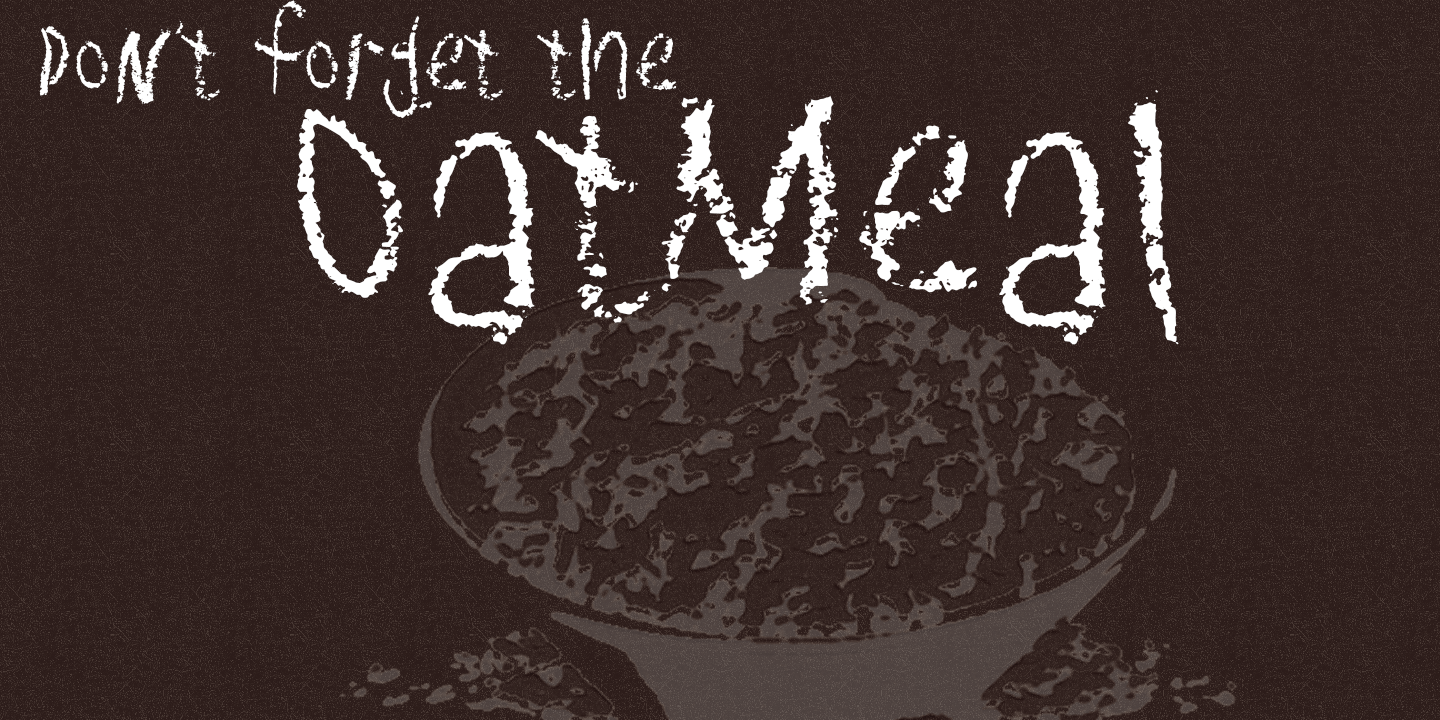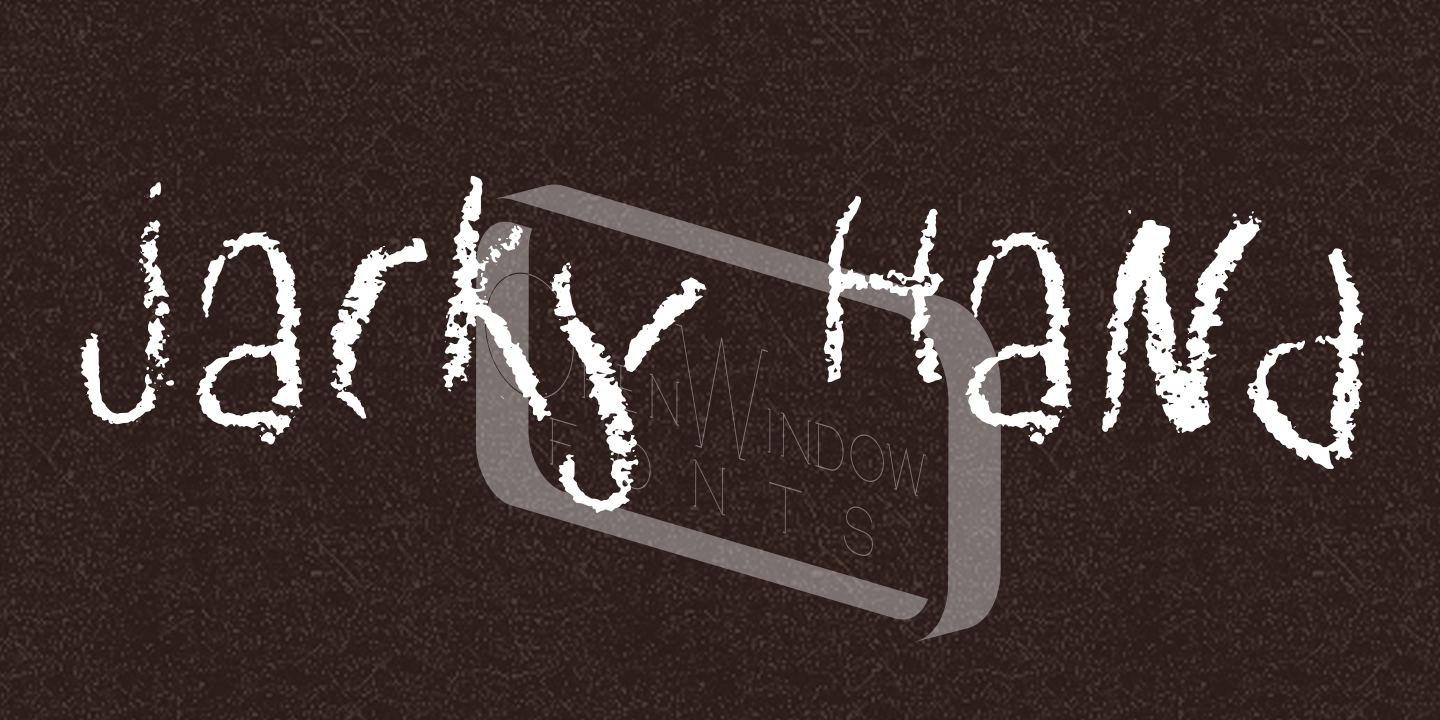
Jacky Hand
Font Family by Open Window
Jacky Hand is a waxy new font totally drawn by my 6 year old son while practicing his handwriting. This is a totally diverse font perfect for a wide range of uses. Great for use in horror movie posters, expressing childlike naivet